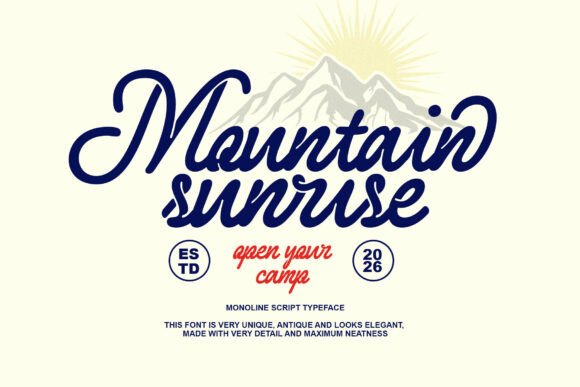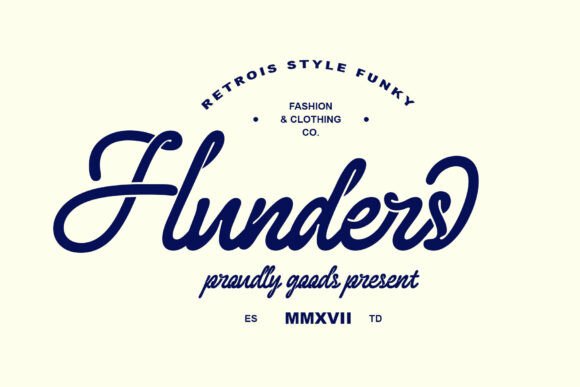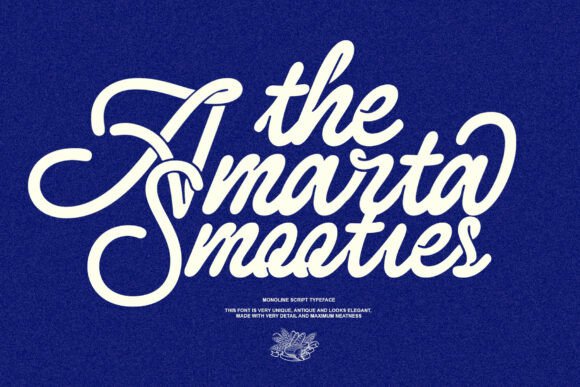
Introduction to Shina Qatline Font
Have you ever stared at a blank canvas, waiting for the perfect font to bring your creative project to life? As designers, we’ve all been there – searching for that one font that captures the essence of our vision. For those who crave elegance, sophistication, and a touch of luxury, look no further than the stunning Shina Qatline Font.
This high-quality, monoline script font is a game-changer for any design resource. With its smooth flowing curves and clean lines, it’s the perfect addition to your design toolkit. Whether you’re working on a free download or a paid project, Shina Qatline Font is sure to impress. Its versatility makes it ideal for digital and print use, from wedding invitations to branding and logo design.
- High-quality, unique design for creative projects: The Shina Qatline Font offers a distinctive and elegant style that can elevate any design, making it an ideal resource for designers.
- Medium to large size: The font size is suitable for headings and titles, with a medium to large size that is easy to read.
- High-resolution design: The font is designed at a high resolution, making it suitable for use in a variety of creative projects, from print to digital media.
- Perfect for digital and print designs: The Shina Qatline Font is ideal for use in digital and print designs, including logos, posters, and other creative projects.
- ✨ The font’s unique design is perfect for creating a professional and modern look.
While the Shina Qatline Font is an excellent addition to any design toolkit, there are a few limitations to consider.
- ⚠️ The font may not be suitable for projects that require a more traditional or classic look.
- ⚠️ The font’s bold lines may not be ideal for projects that require a lot of text.
Overall, I’m impressed with the Shina Qatline Font. It’s a great resource for designers who want to create unique and modern designs. With its high-quality design and transparent background, it’s a must-have for any creative project.
The Shina Qatline Font is ideal for various creative projects, including branding, advertising, and editorial design. Its unique design and high quality make it a great choice for designers who want to add a personal touch to their work.